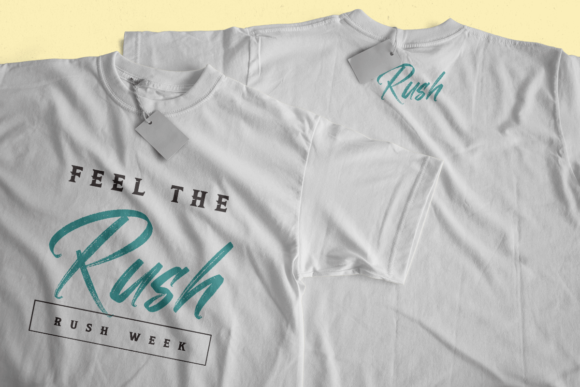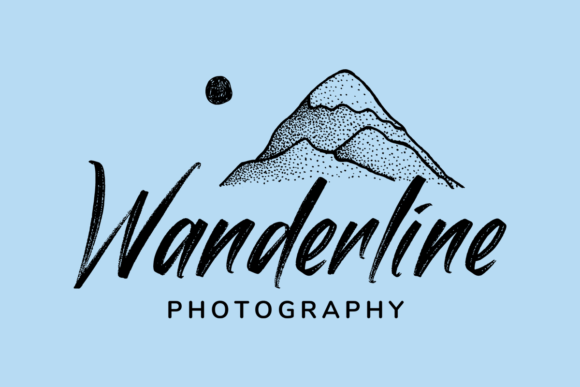
Beastquit Brush Font
db-ku.com - Script & Handwritten -- Beastquit is a cool urban-style handwritten font. This brush font is suitable for t-shirts, sportswear, logos, advertisements, clothing, movies, posters, quotes, and more. It includes elegant swashes, which make it perfect for adding a luxurious feel to your designs.